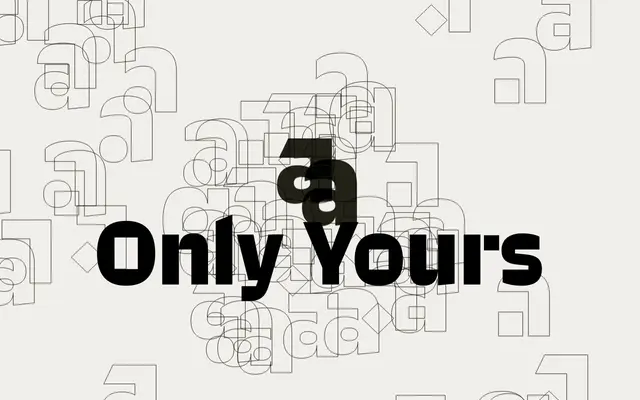
Only Yours
A conceptual type system by David Březina that generates over a million unique variants, each sold exclusively to a single customer.
Rather than licensing an identical font to countless buyers, Only Yours assembles each variant from a set of switchable design features — terminals, crossbars, arches, dots, and alternate letterforms — producing an estimated 1,179,648 distinct combinations. Nine variants are made available each day; once purchased, a variant is permanently retired from sale, guaranteeing exclusivity. The family runs across seven weights from Light to Black, with variable font support, and covers extended Latin.
A clean, modular sans-serif with geometric underpinnings; the system of interchangeable design features — arches, terminals, crossbars, dots — is characteristic of geometric sans construction.